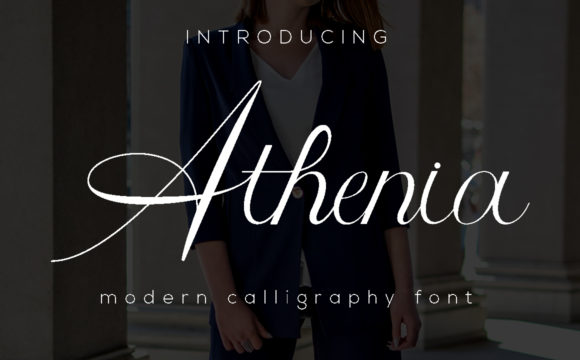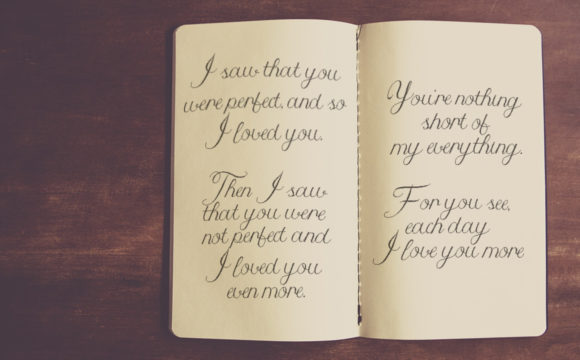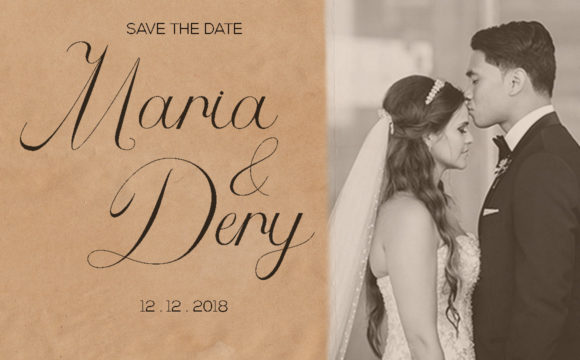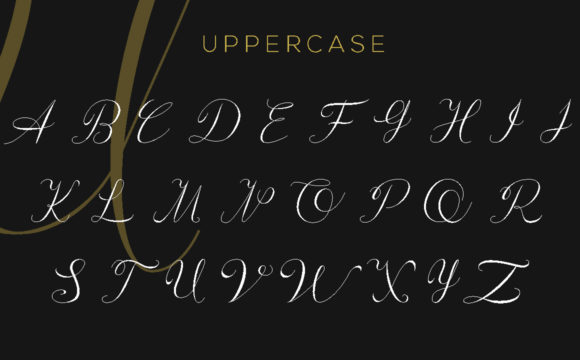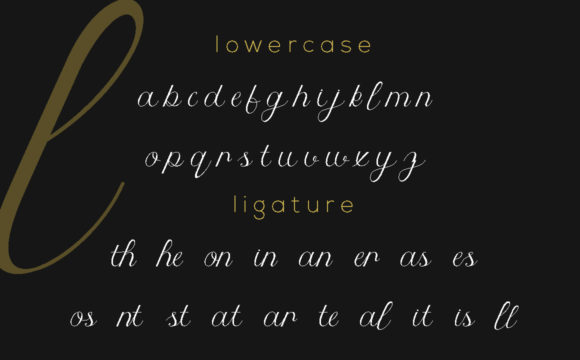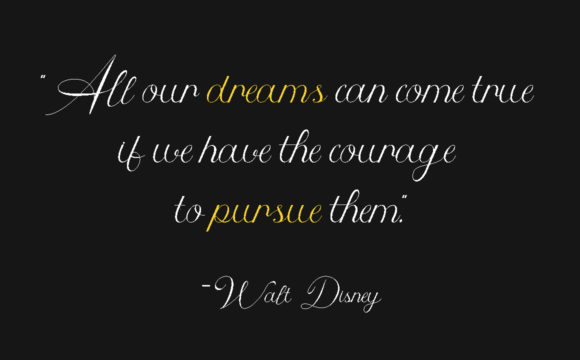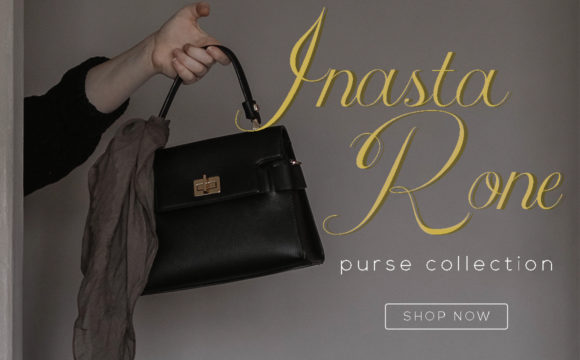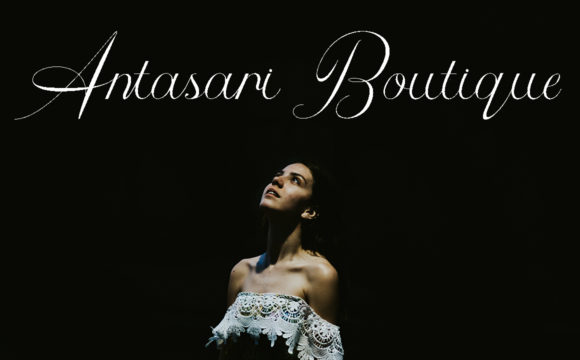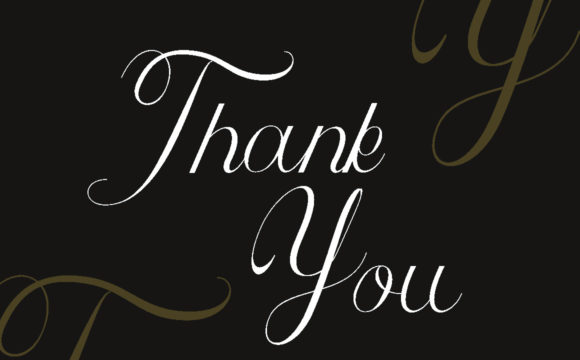
Athenia Font
About Athenia Font
The Athenia is a modern calligraphy font that comes with very beautiful characters. It has the style of a classic decorative cooper script with a modern touch. It’s highly detailed to bring some elegance to your designs.